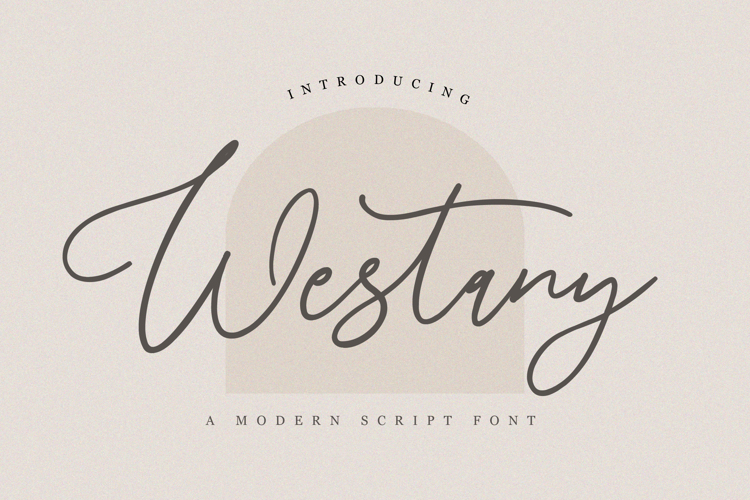
Westany Font
Westany Handwritten Font is a Fun Monoline Script font with a casual look and a signature style. Westany Font is perfect for your upcoming projects. This script is casual and clean which makes is perfect for many designing needs such as logos, blog headers, wedding invitations, branding, t-shirts, posters & many more type of projects!